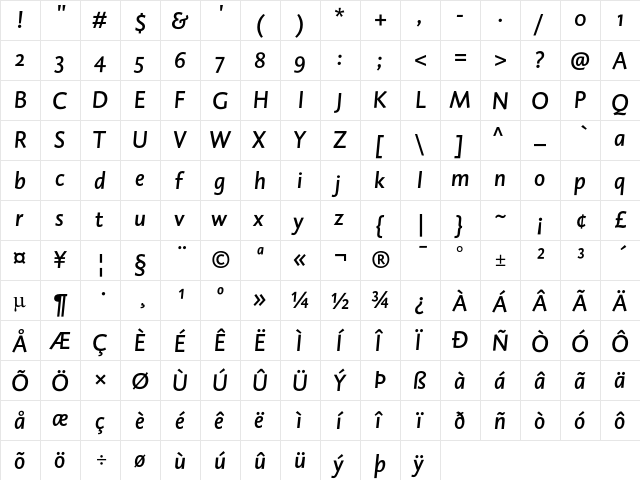
DTL Caspari ST Medium Italic
Design Context for DTL Caspari Typeface
DTL Caspari is a composed and adaptable typeface that performs quietly and consistently across a wide range of design contexts. The dynamic lean of this cut emphasises speed and emphasis in any layout.
Pro Tip: Try DTL Caspari for annotation and caption copy alongside an upright companion — the contrast in angle creates a dynamic but ordered typographic system.